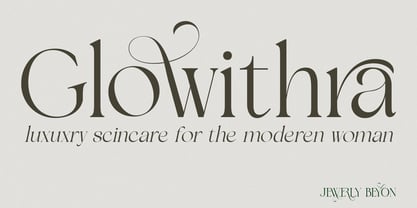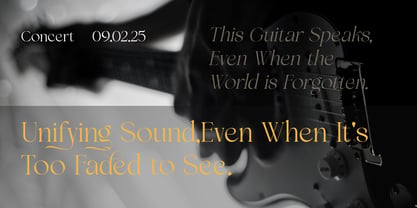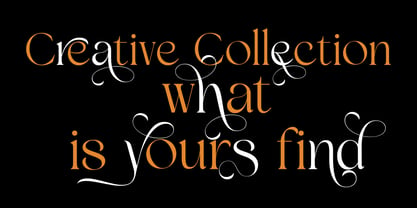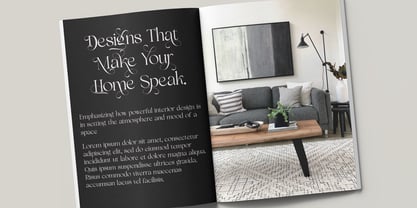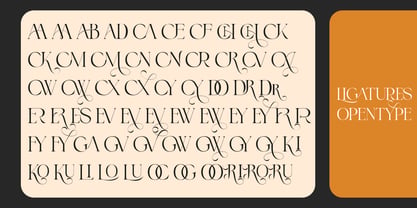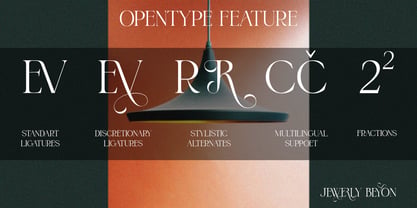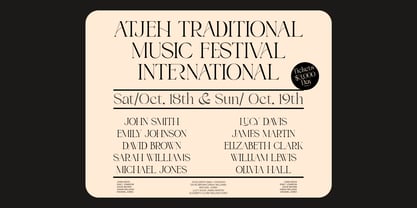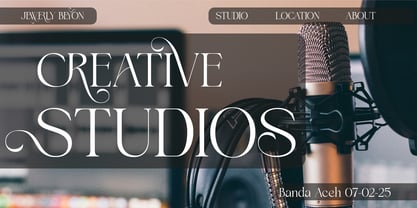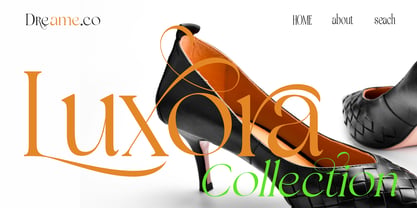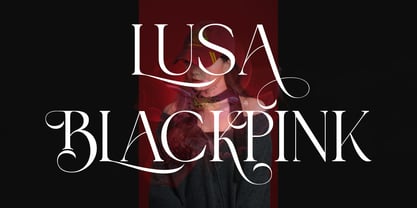
Jewerly Beyon
by Luhop Creative
The Jewerly Beyon Font Family was designed by Arif Fadilah and published by Luhop Creative. Jewerly Beyon contains 50 styles and family package options. More about this family
Jewerly Beyon is an elegant serif font designed with a soft touch and unique character. It perfectly balances classic and modern aesthetics, making it an ideal choice for luxury branding, editorials, and creative designs.
Featuring stunning alternates and modern ligatures, Jewerly Beyon offers versatility in every typographic composition. Each letter is meticulously crafted with delicate details, exuding a sophisticated, romantic, and exclusive feel. The smooth flow of the letterforms, combined with modern elements, creates a refined and timeless look.
With its distinctive characteristics, Jewerly Beyon is perfect for logos, wedding invitations, packaging, and designs that require an elegant and classy touch. This font not only enhances visual appeal but also delivers a captivating typographic experience.